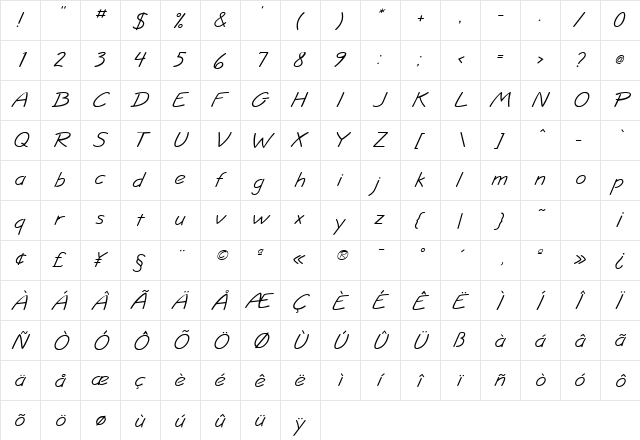
Informa SSi Italic
Design Context for Informa SSi Typeface
Informa SSi takes a measured approach to typography — its balanced proportions and neutral character make it a reliable workhorse for both digital and print work. Its italic angle brings a sense of urgency and motion to the letterforms.
Pro Tip: Try Informa SSi for annotation and caption copy alongside an upright companion — the contrast in angle creates a dynamic but ordered typographic system.